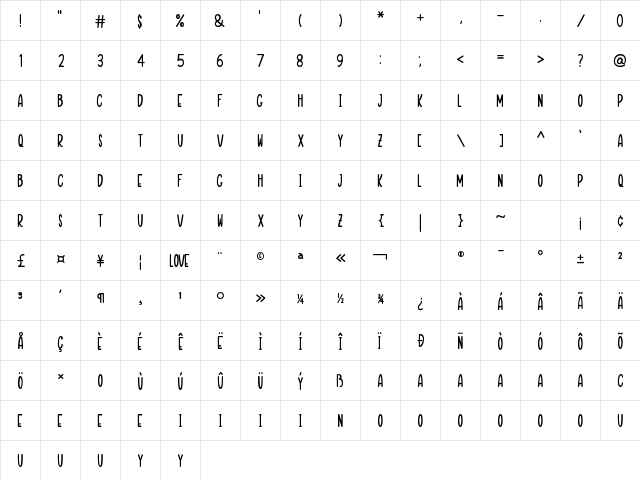
PAPER MOON Regular
| Foundry | Fadlilah Studio |
| Designer | Fina Fadlilah |
Design Context for PAPER MOON Typeface
PAPER MOON offers clean, dependable letterforms without strong stylistic allegiance, making it a practical choice for designers who need flexibility.